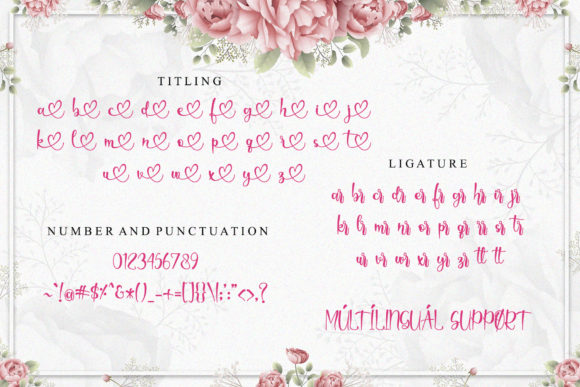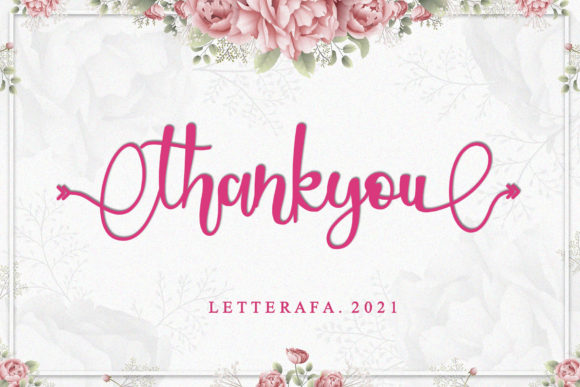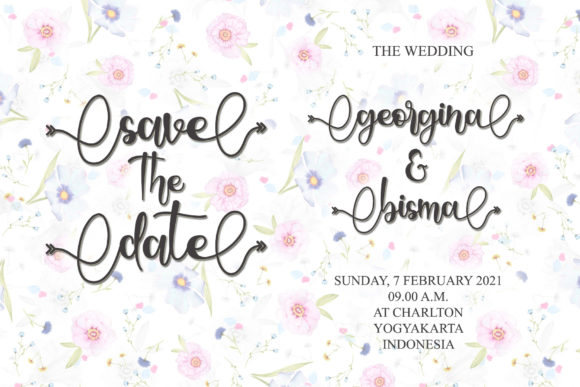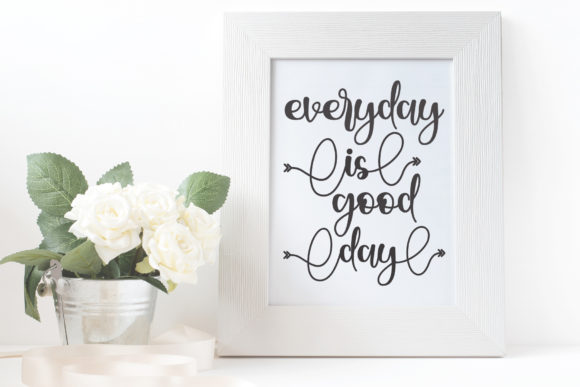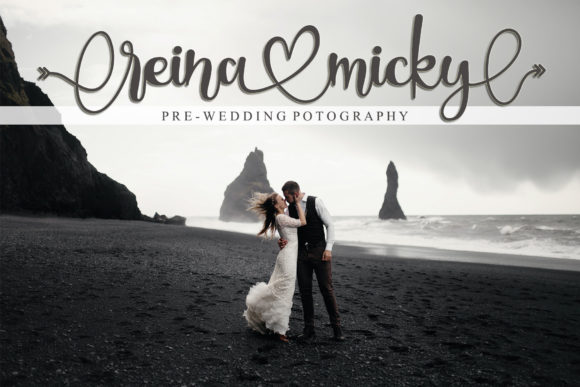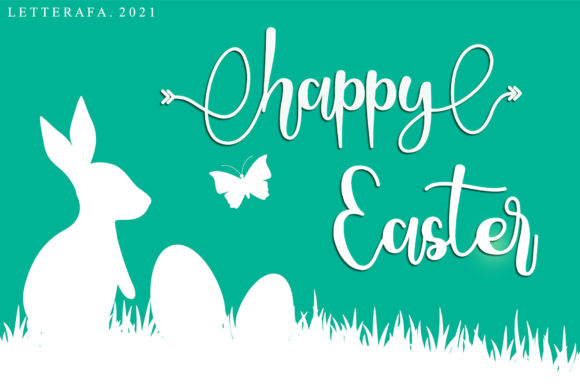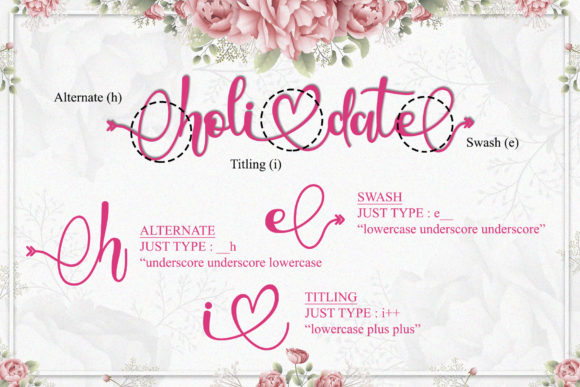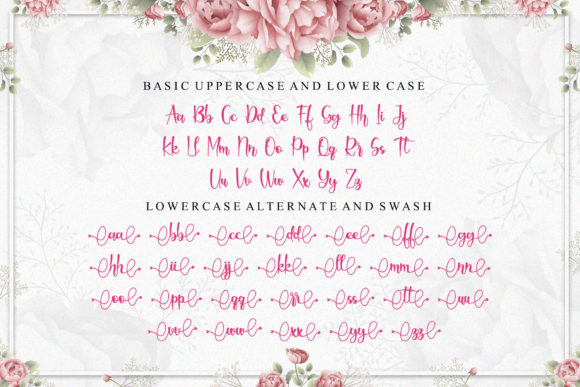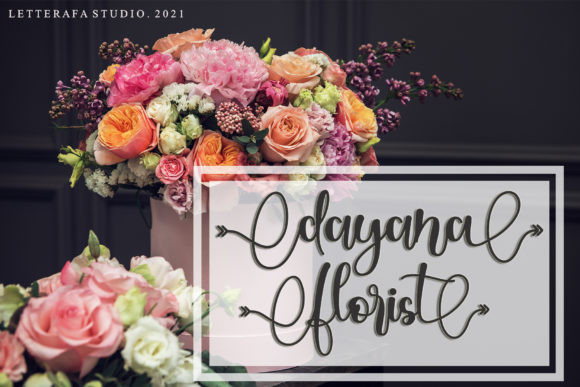
Holidate Font
About Holidate Font
Holidate is a romantic handwritten font. It looks marvelous on a variety of design ideas related to Valentine’s Day, wedding invitations, love letters and so on. This font is PUA encoded which means you can access all of the glyphs and swashes with ease!